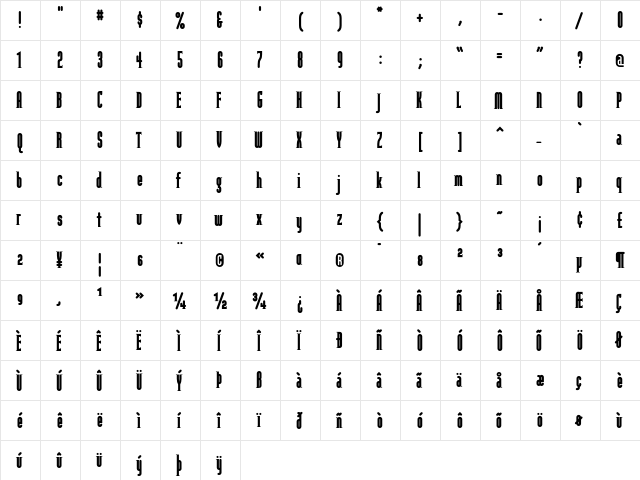
Modula RoundSerifBlack Font Preview
Modula RoundSerifBlack
Design Context for Modula Typeface
Modula brings classic typographic sensibility to the table — its serifs and measured letterforms reflect centuries of print heritage.